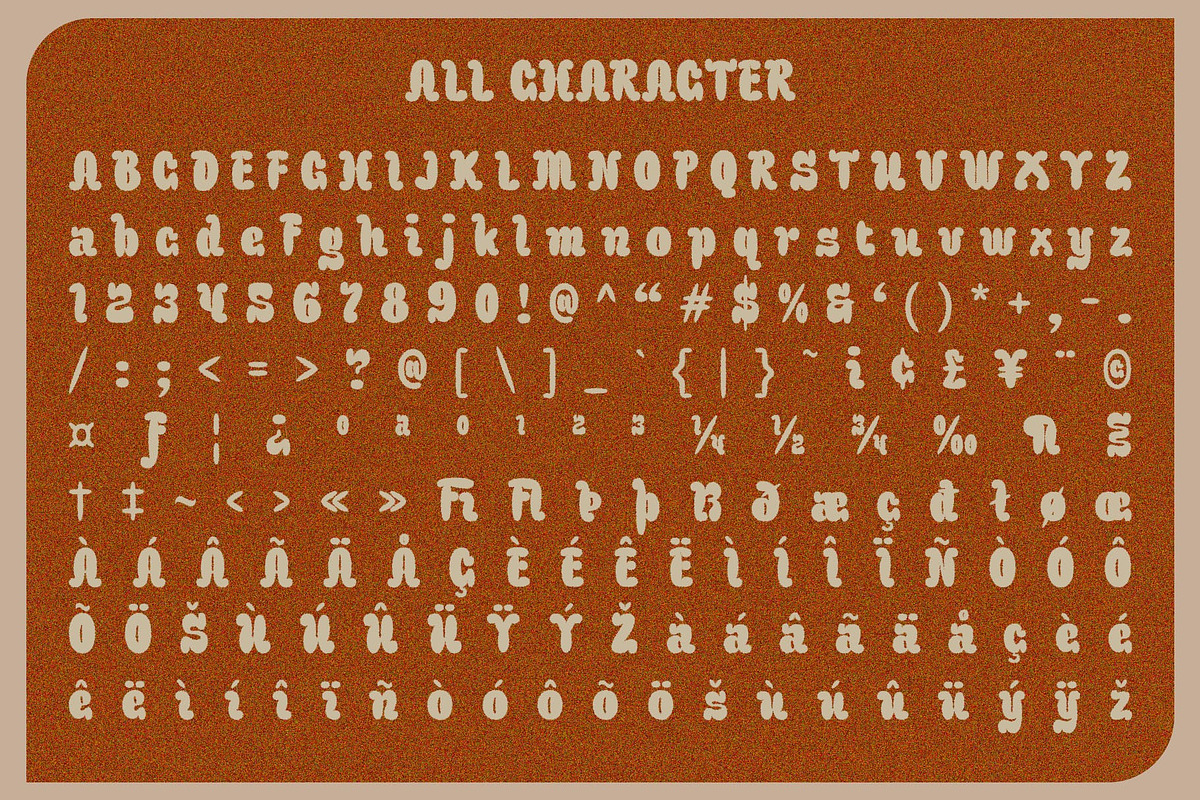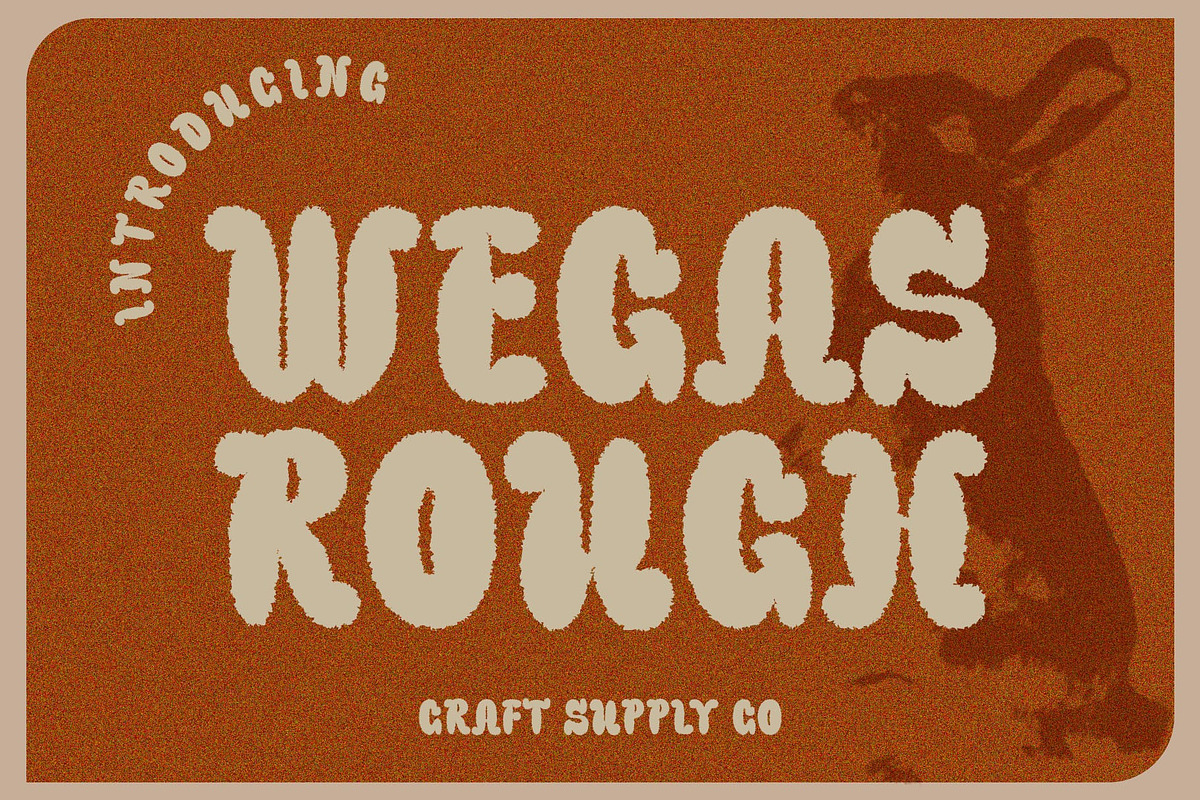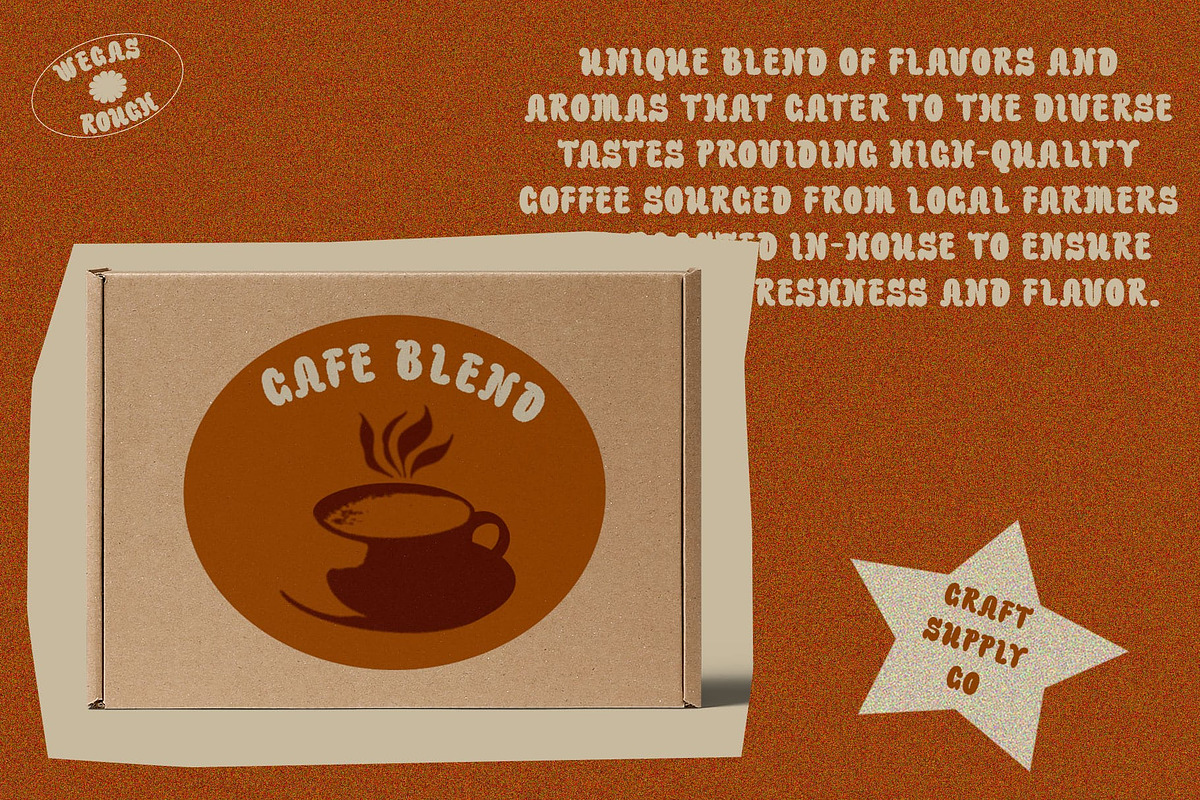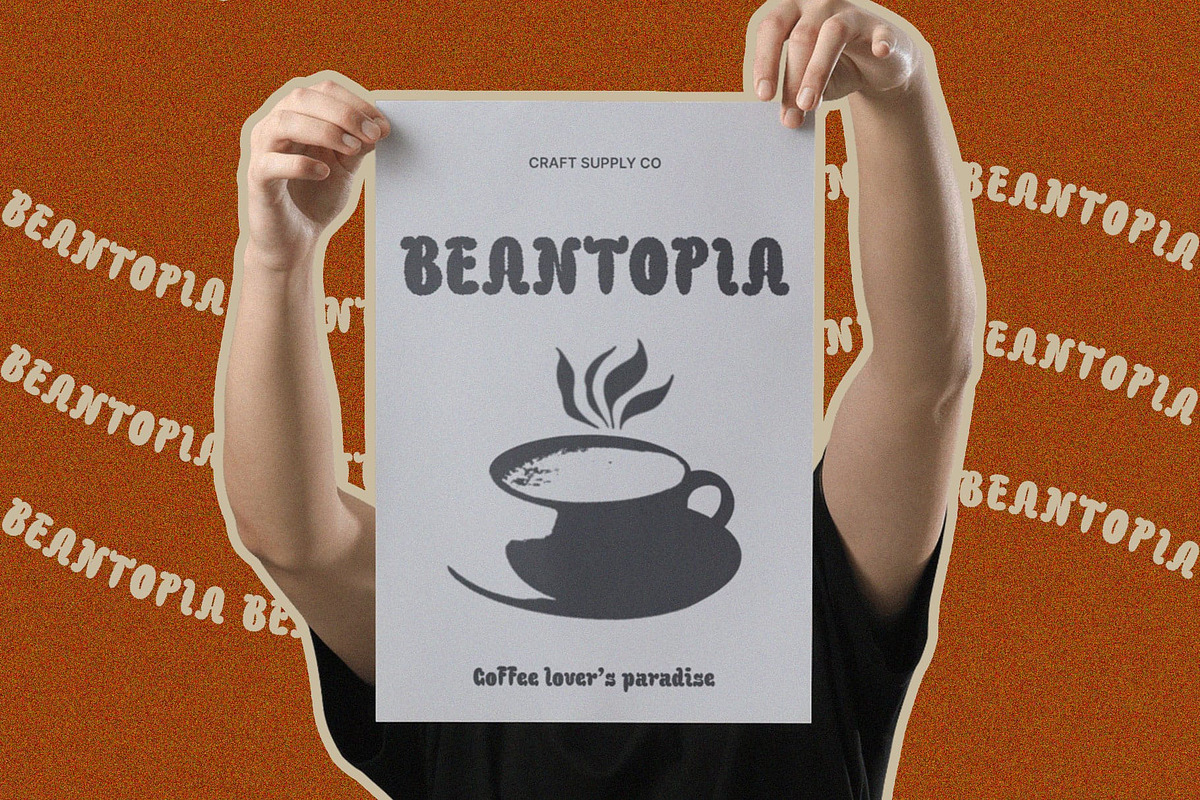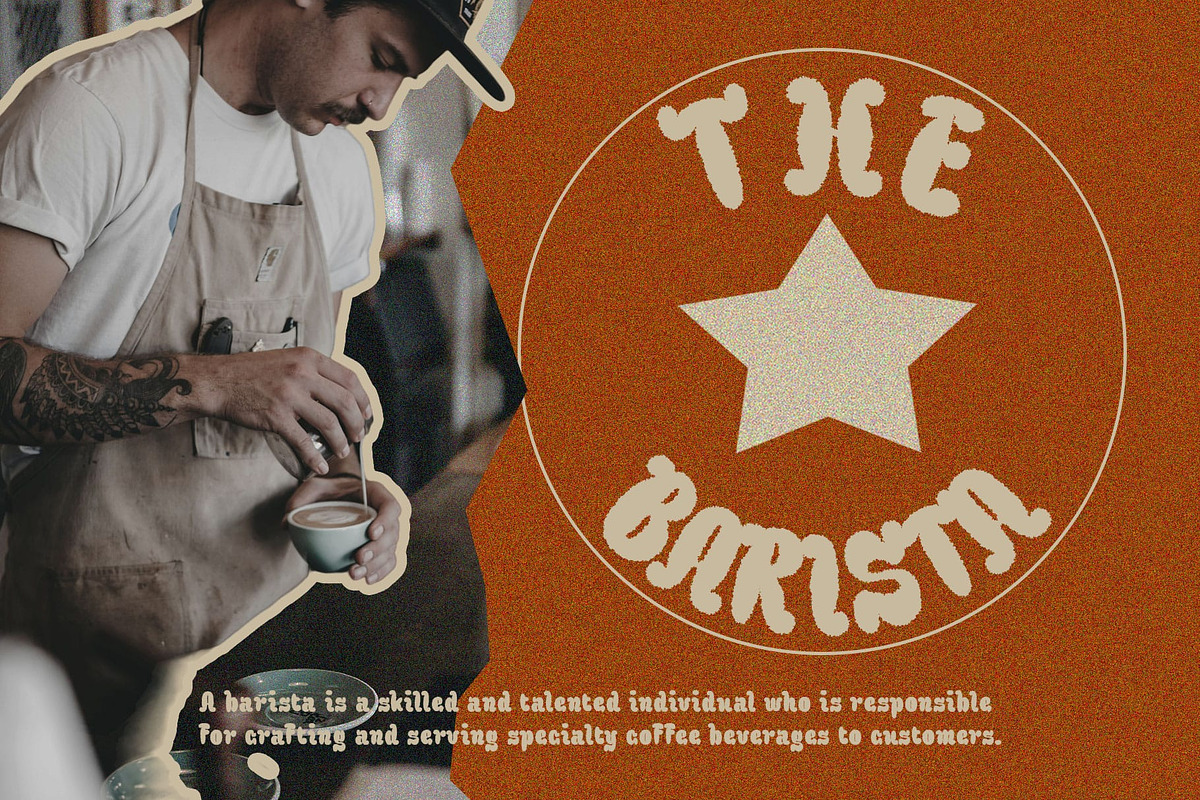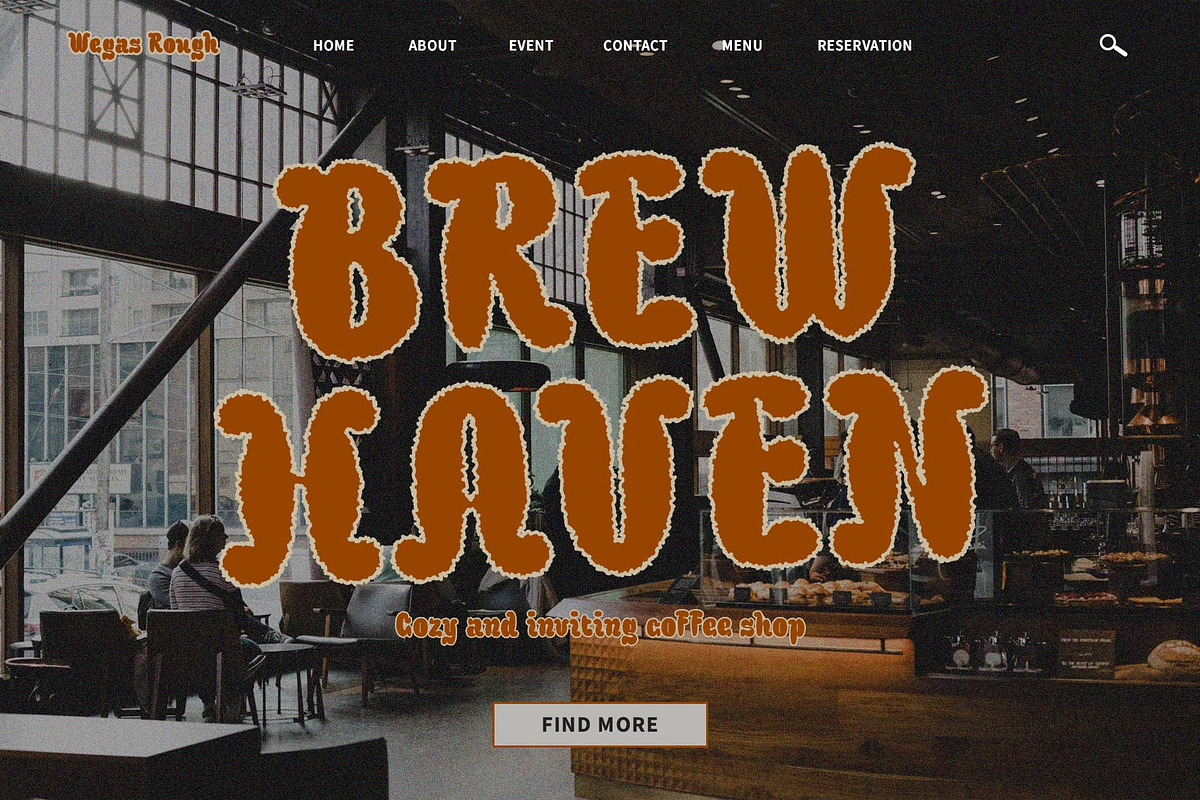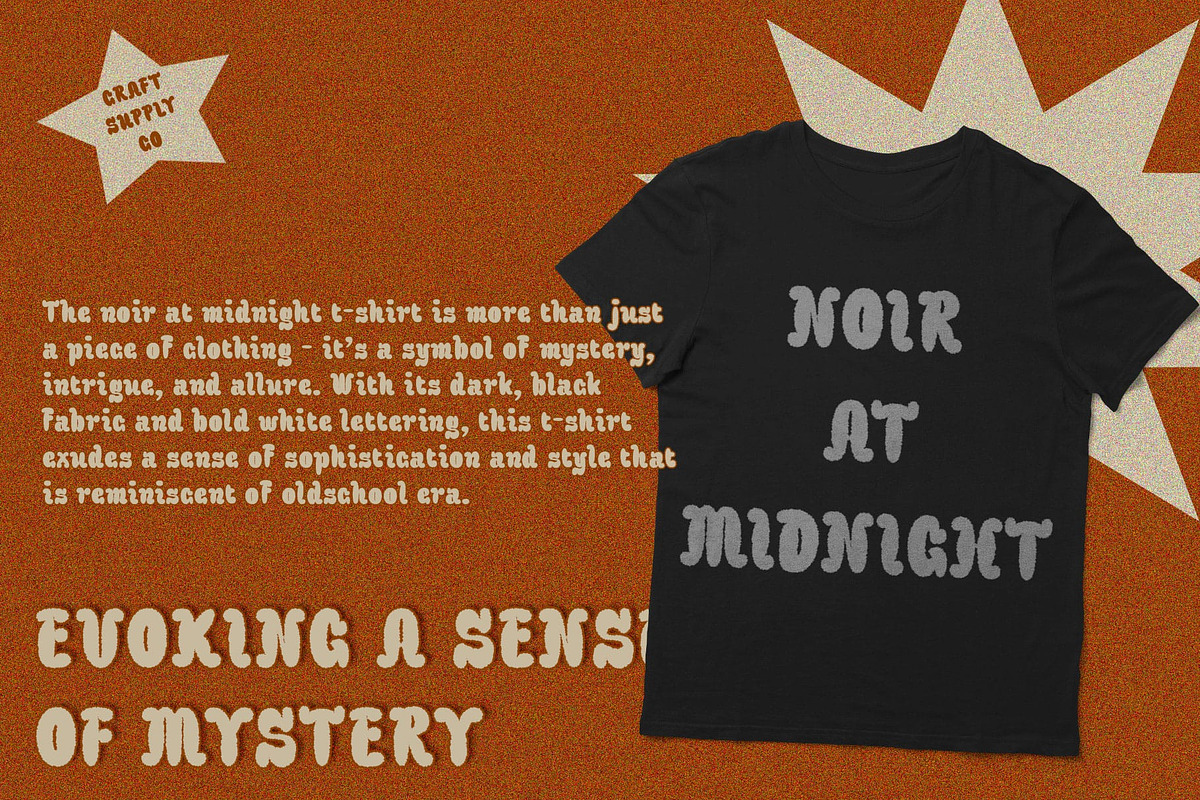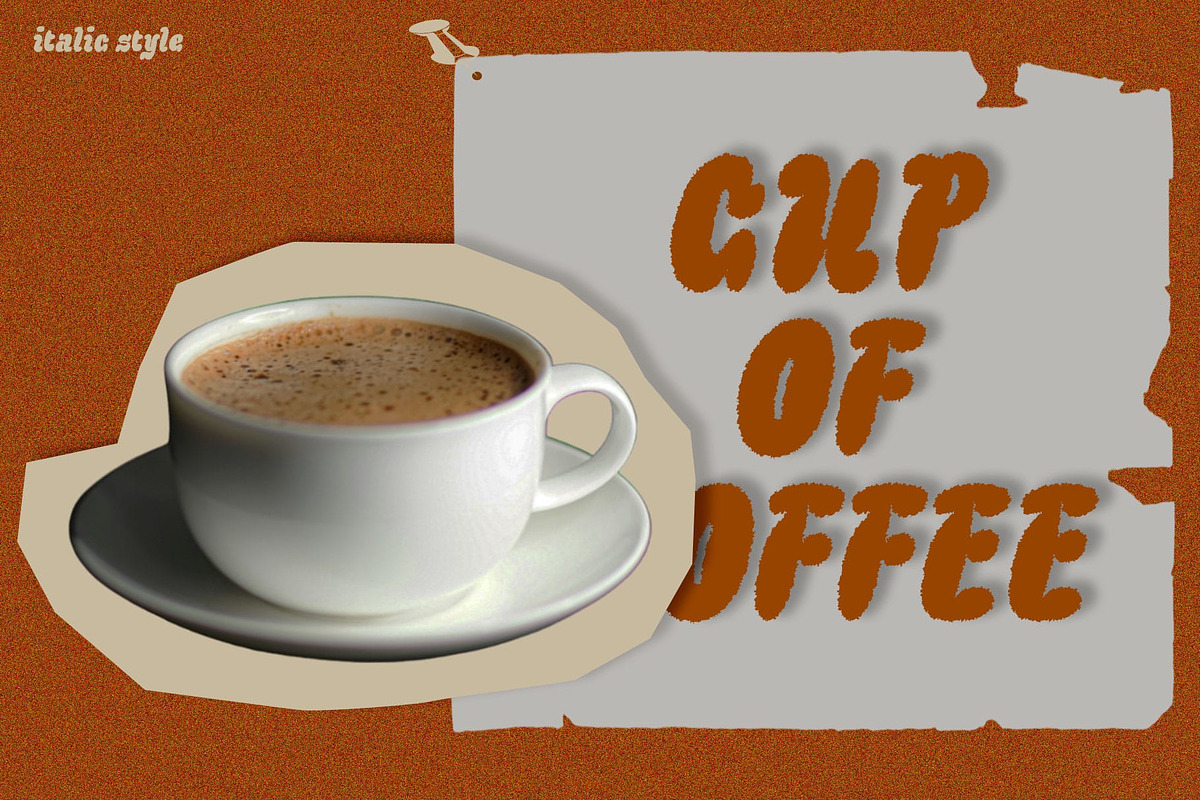
Wegas Rough
Wegas Rough: Fun and Playful Display Font
Bubble Balloon Design Wegas Rough features a charming bubble balloon design, lending a whimsical and playful vibe to any project. Each letter is crafted to resemble a delightful floating bubble.
Rough Texture Effect The font is enhanced with a rough texture effect, adding depth and character to its appearance. This texture gives the font a handmade and organic feel, perfect for creating eye-catching display text.
Perfect for Display Use With its bubbly design and rough texture effect, This font is tailor-made for display purposes. Whether it’s used in headlines, posters, or advertisements, this font is sure to grab attention and make a statement.
Versatile and Fun Despite its playful appearance, This font remains versatile in its application. It adds a touch of fun and personality to various design projects, including branding, packaging, and social media graphics.
Bring Your Designs to Life This font is a delightful display font that adds a playful and charming touch to any project. With its bubble balloon design and rough texture effect, it’s the perfect choice for designers looking to infuse their work with joy and creativity. Let Wegas Rough bring your designs to life and make them stand out from the crowd.